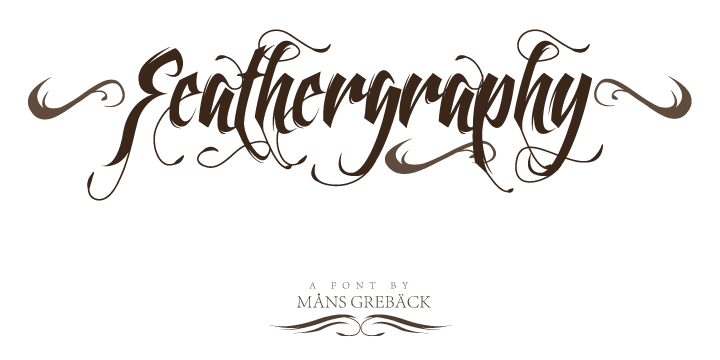
Feathergraphy Font is perfect for luxury wedding invitations, feminine brand logos, beauty salon signage, fashion boutique materials, delicate greeting cards, spa and wellness branding, handwritten quote designs, elegant social media graphics, and premium lifestyle brands that require sophisticated femininity and graceful typography.
Feathergraphy Font brings excitement through its delicate, feather-light strokes and graceful calligraphic elements that embody ethereal beauty and refined elegance. This exquisite script typeface features flowing letterforms with gentle curves and subtle flourishes that create a sense of lightness and sophistication. The font's organic handwritten appearance combined with professional polish makes it perfect for brands seeking to convey femininity, grace, and artistic refinement in their visual identity.
Feathergraphy Font family includes Regular, Bold, Light, Swash, and Decorative variations. Each style maintains the font's characteristic delicate beauty while offering different ornamental elements and stylistic alternatives for enhanced creative expression in elegant design applications.
The enchanting appeal of Feathergraphy Font Free Download lies in its ability to transform ordinary text into beautiful, artistic expressions that capture attention with gentle sophistication. Whether you're designing for beauty industries, romantic occasions, or luxury service brands, this font adds unmatched grace to your communications.
Feathergraphy Font excels in both intimate personal projects and professional branding applications, maintaining its delicate charm and excellent legibility across various formats. From wedding stationery to high-end beauty campaigns, this versatile script typeface ensures your message communicates elegance, femininity, and artistic sensibility to sophisticated audiences.